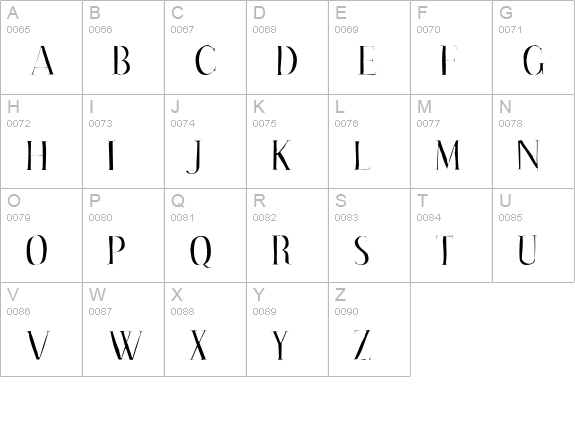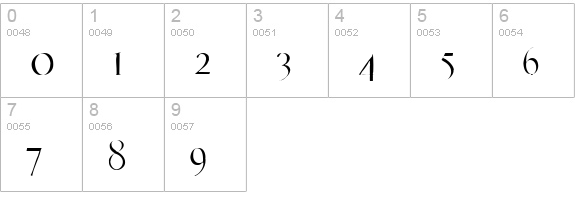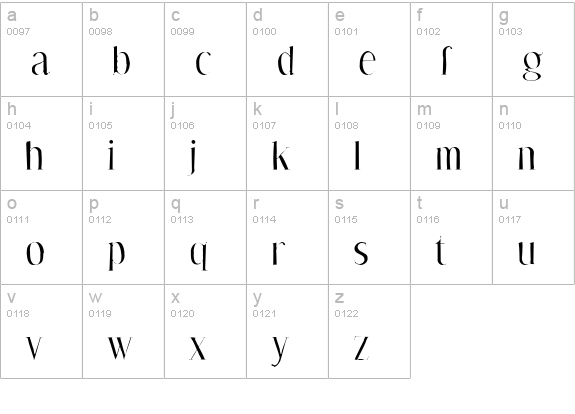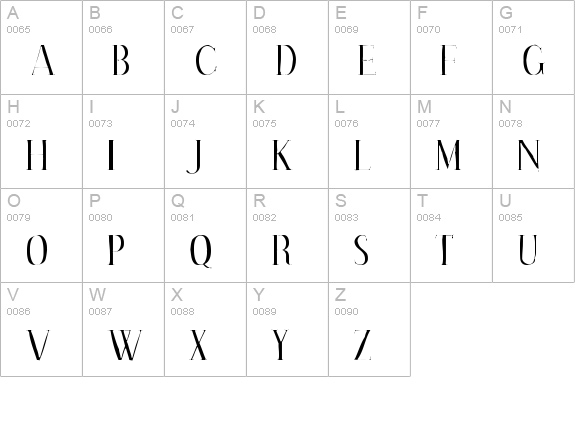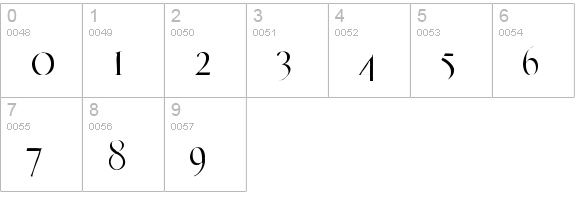
Effloresce Gaunt is a beautifully crafted font that exudes elegance and sophistication. Its slender and delicate letterforms make it perfect for adding a touch of refinement to any design project. The intricate details of this font give it a unique and luxurious feel, making it a great choice for invitations, branding, and other creative projects. What's even better is that Effloresce Gaunt is available for free download at FontsMarket.com. This means you can easily add this stunning font to your collection without any cost. Don't miss out on the opportunity to enhance your designs with the exquisite beauty of Effloresce Gaunt - download it today and elevate your projects to new heights of style and class.